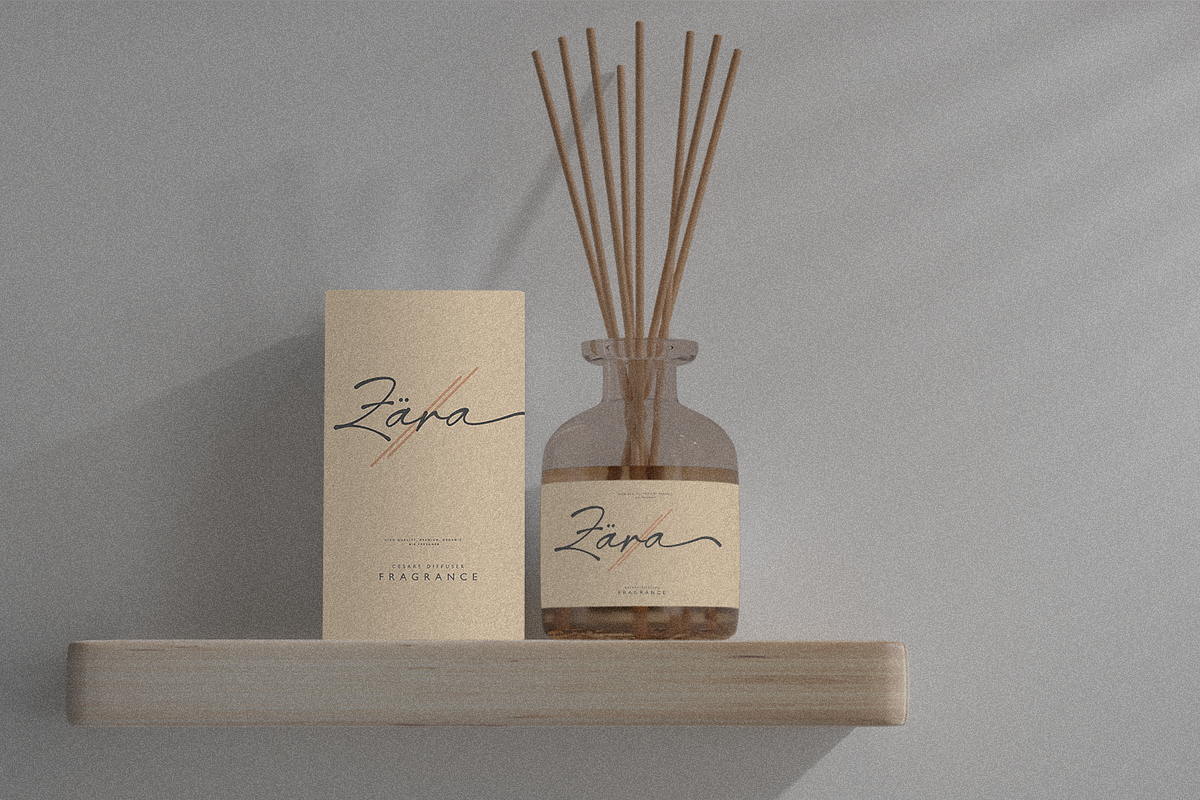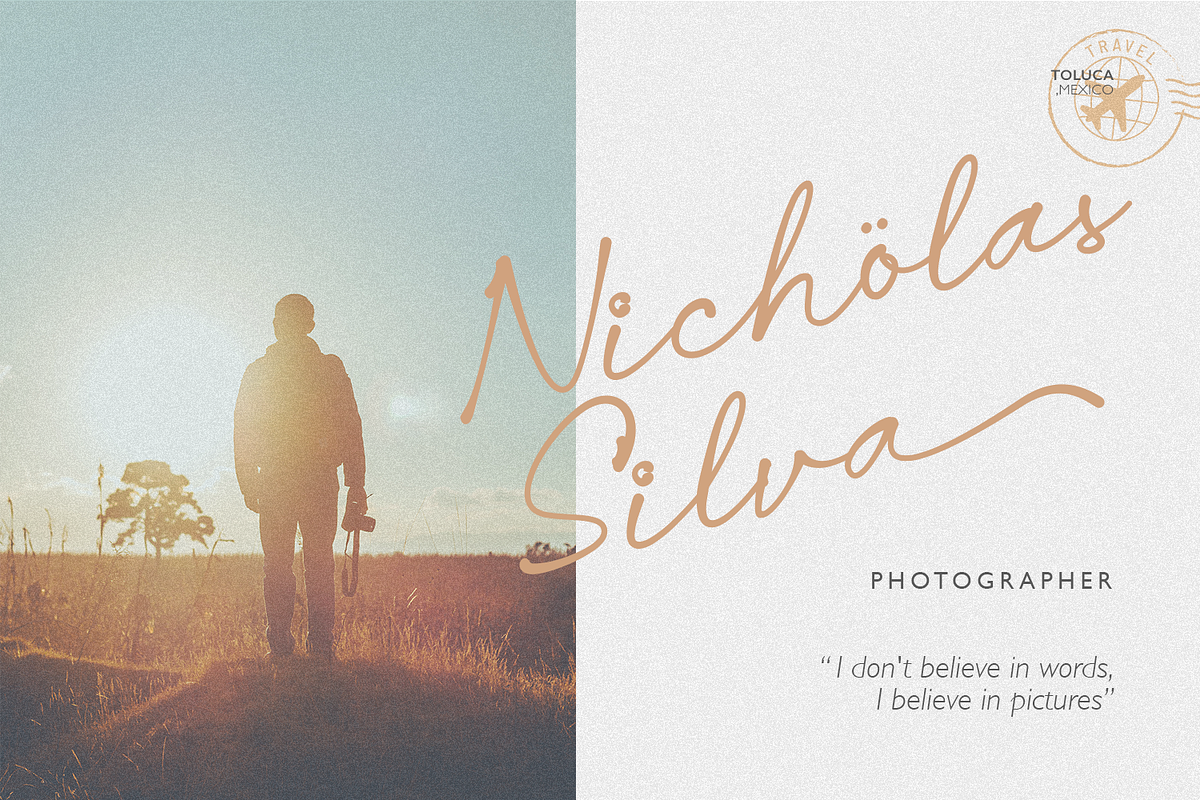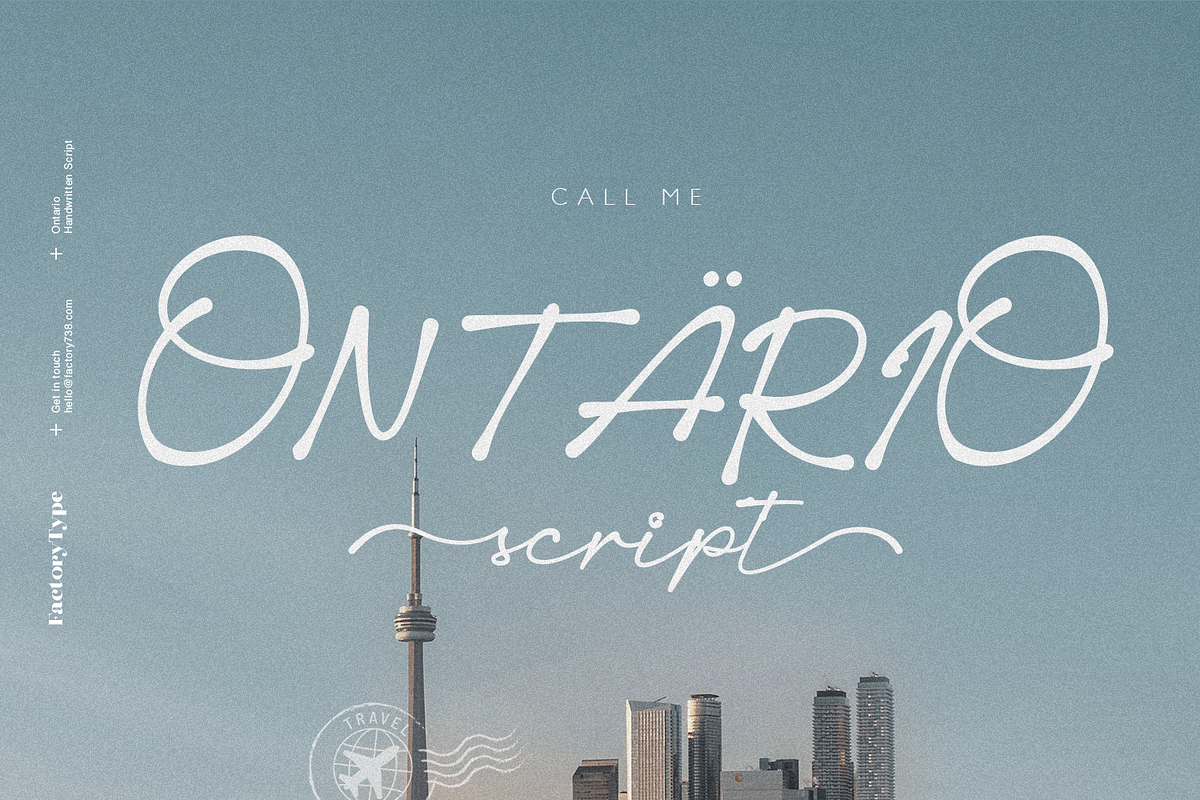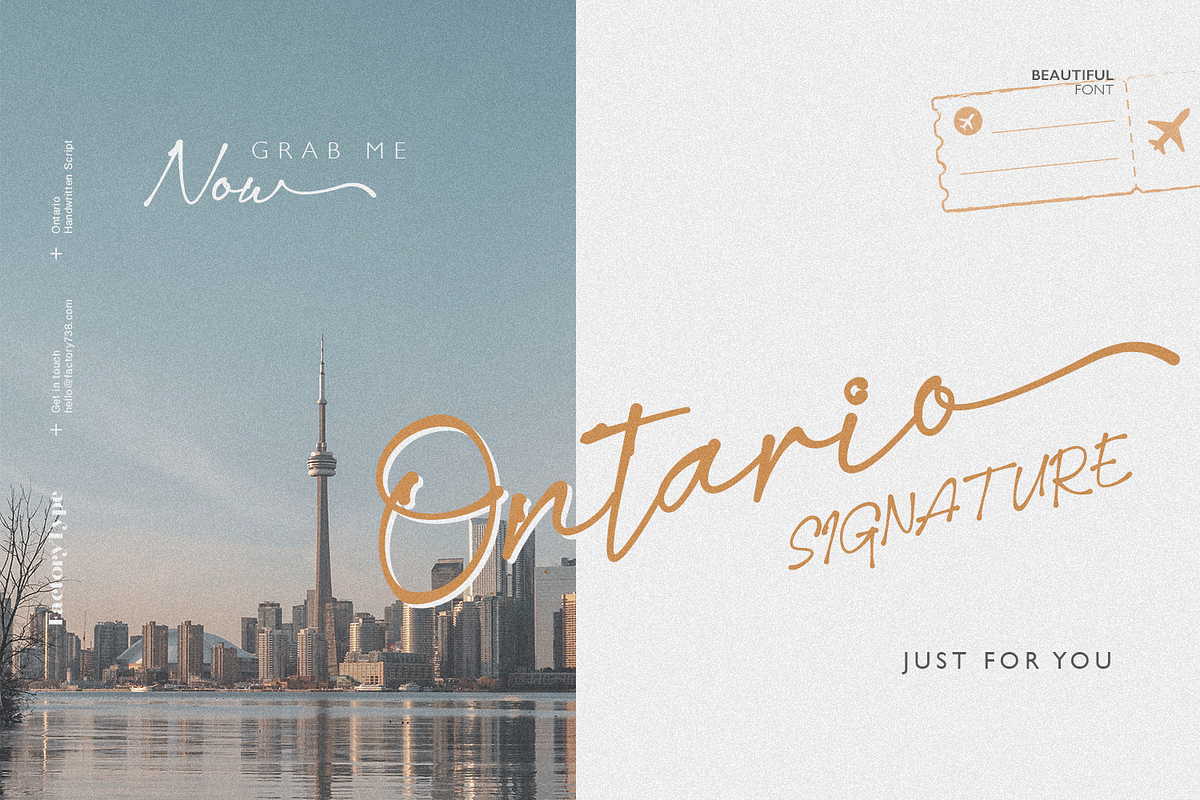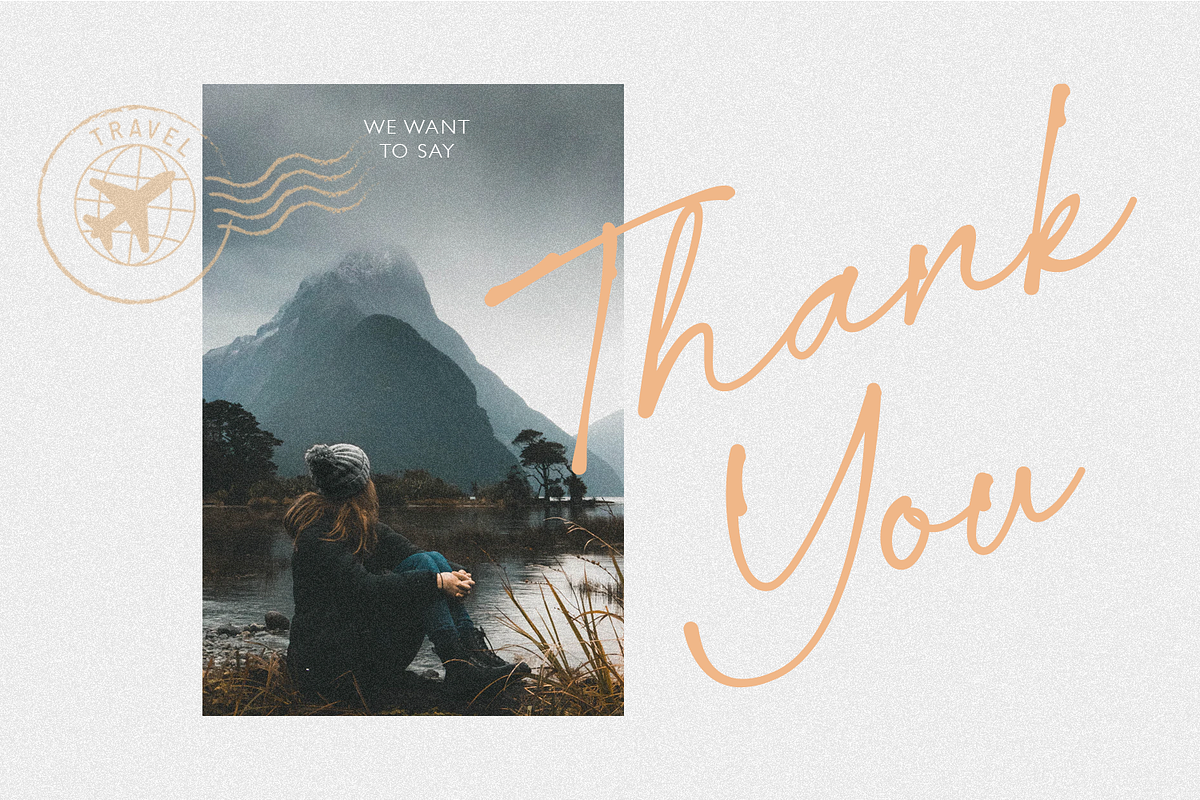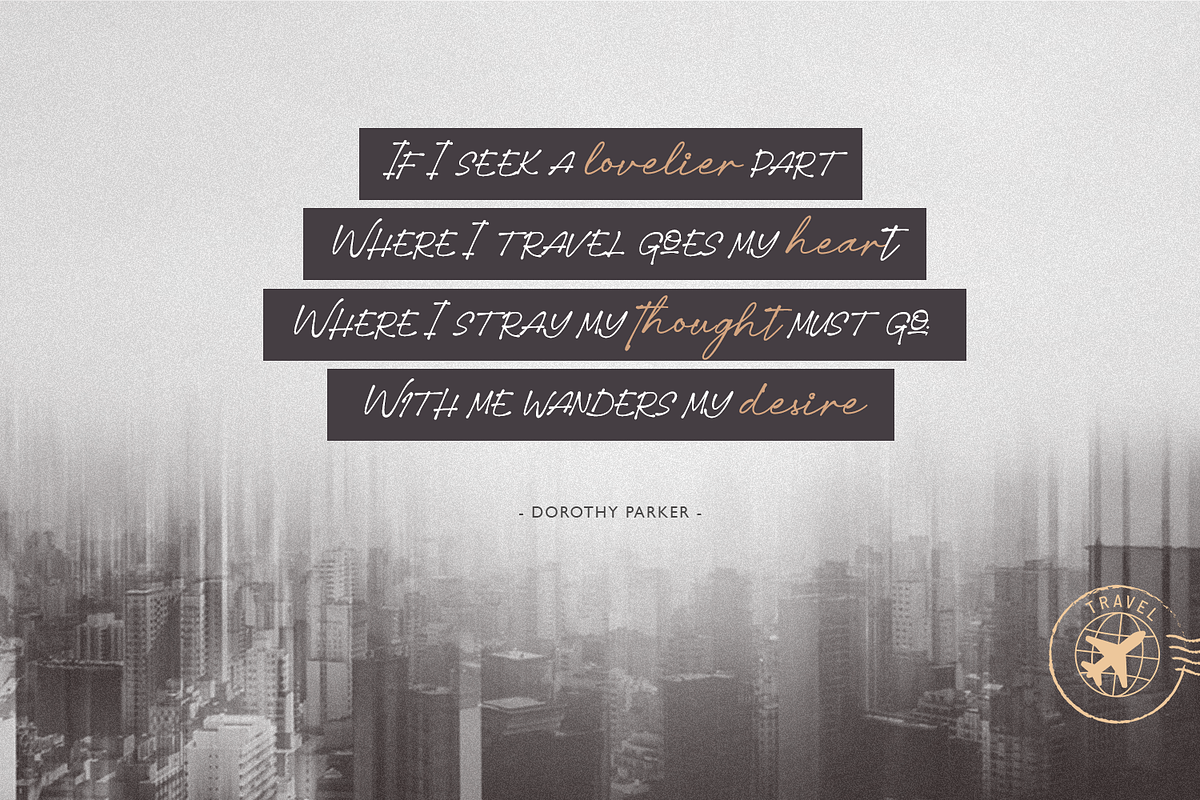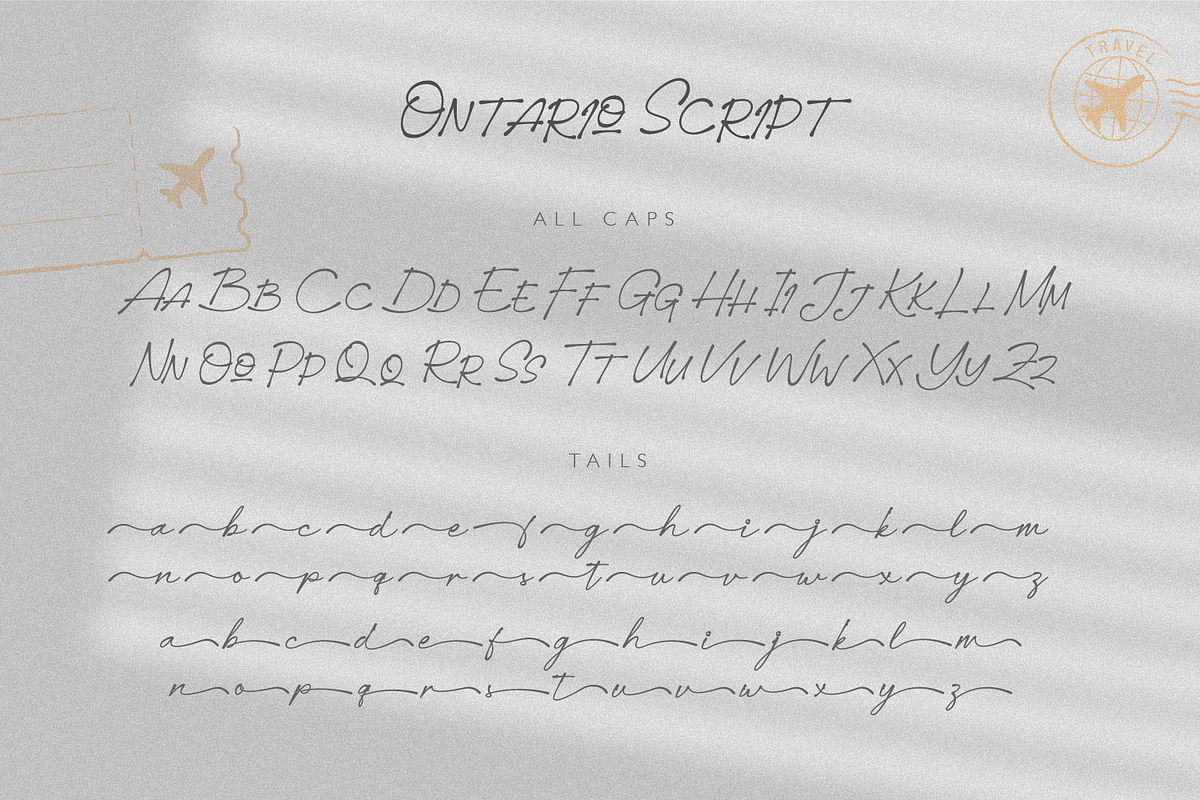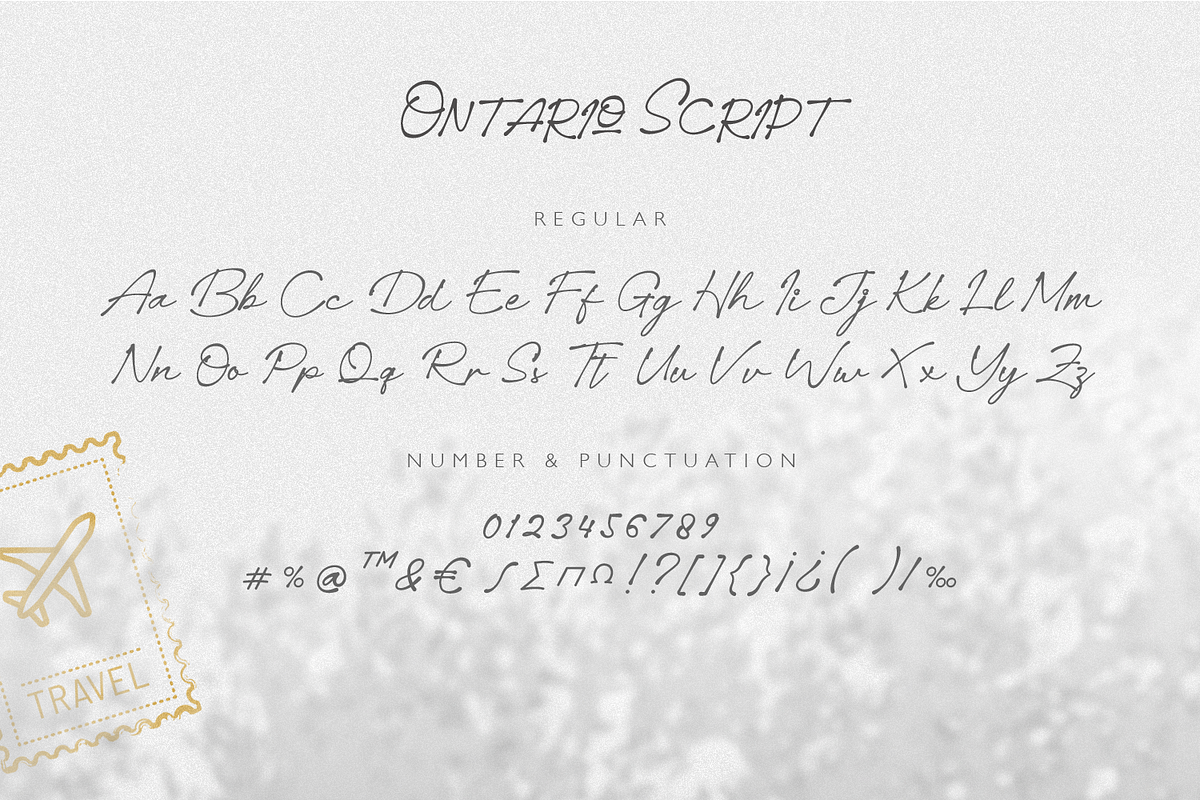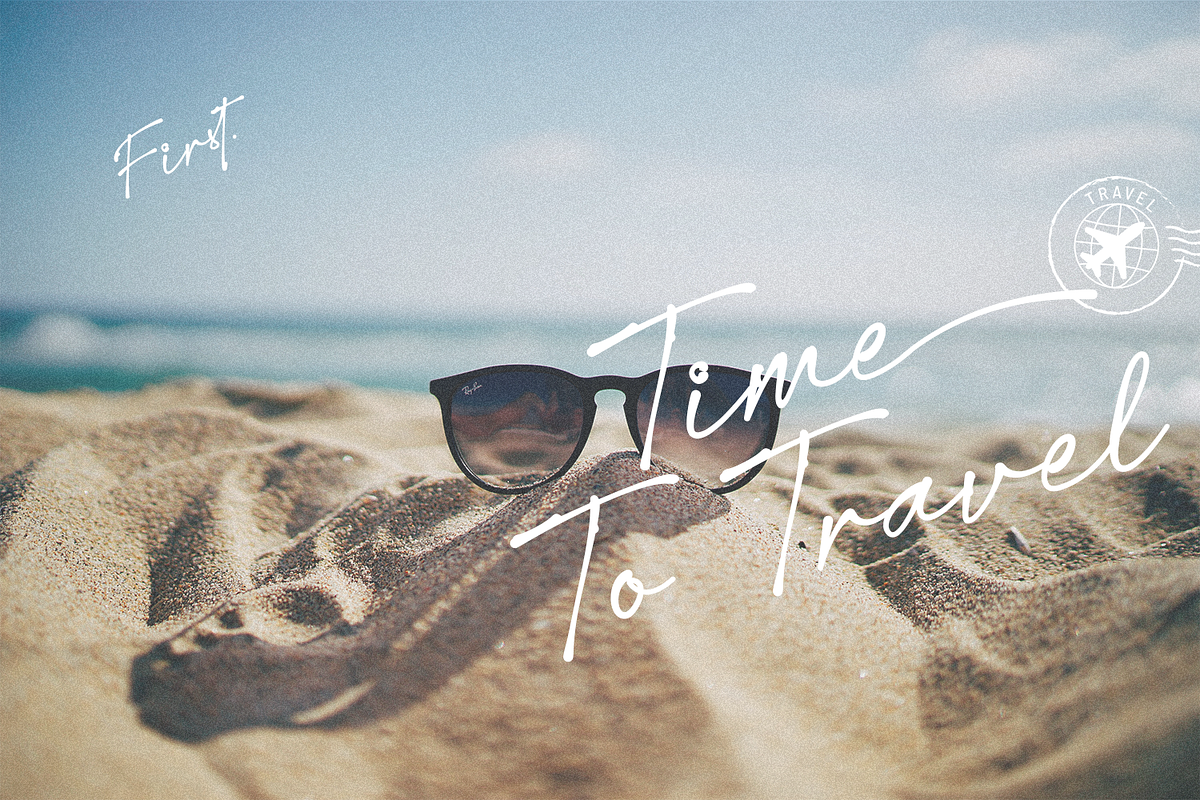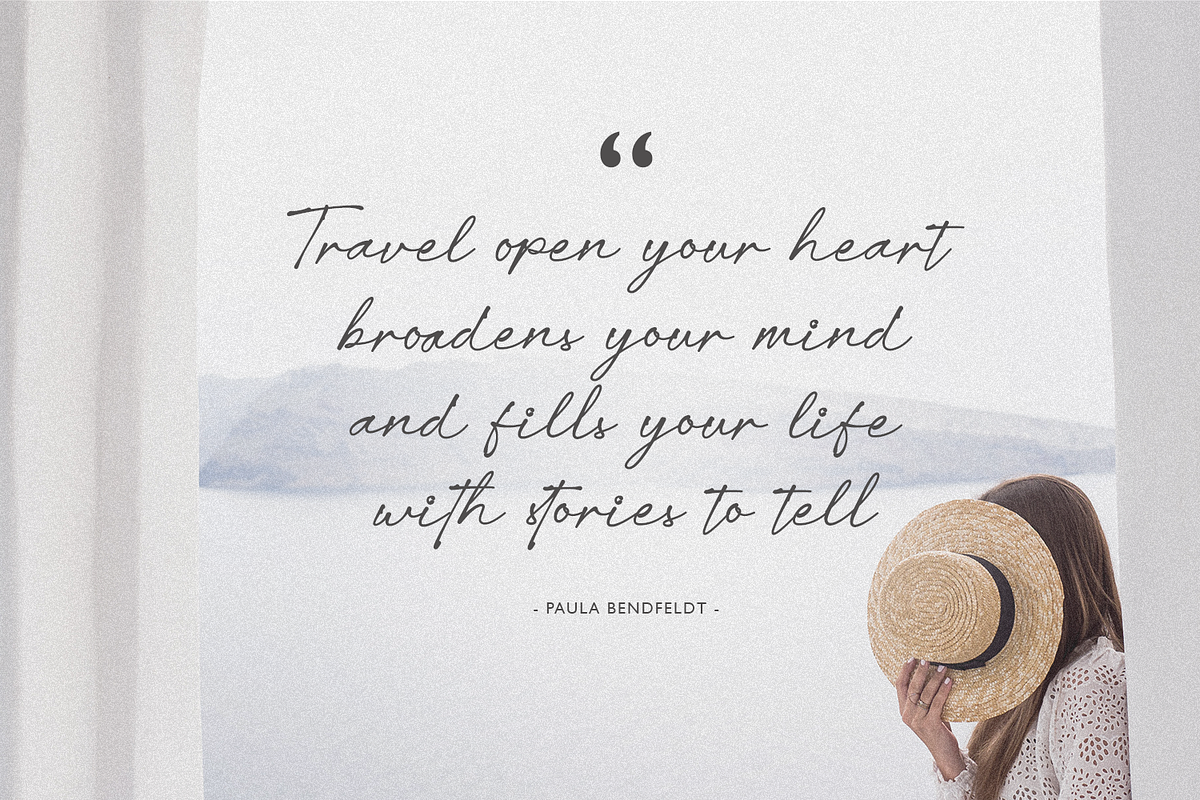
Ontario Script
Call me Ontario - A fashionable handwritten font with a personal touch. Ontario script is ideal for a variety of projects such as branding, logo design, wedding designs, social media posts, advertisements, product packaging, product designs, label, photography, watermark, invitation, stationery, and any other project that requires a handwritten touch.
- Ontario Script (Regular, Caps, and Tails)
- Multilingual Support for ä ö ü Ä Ö Ü …